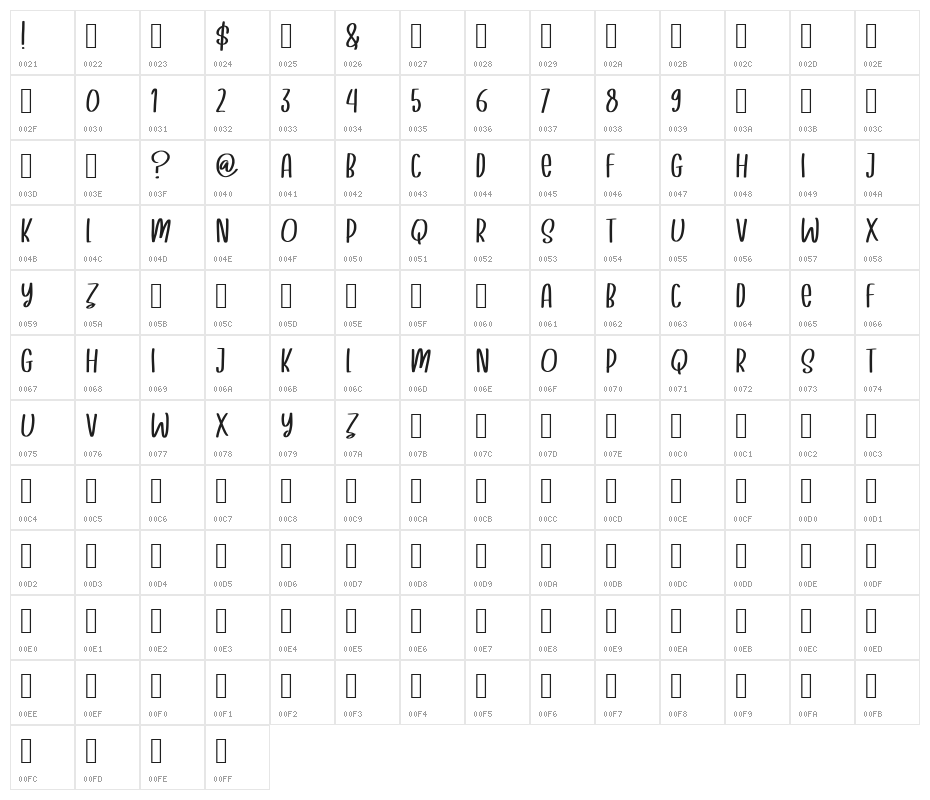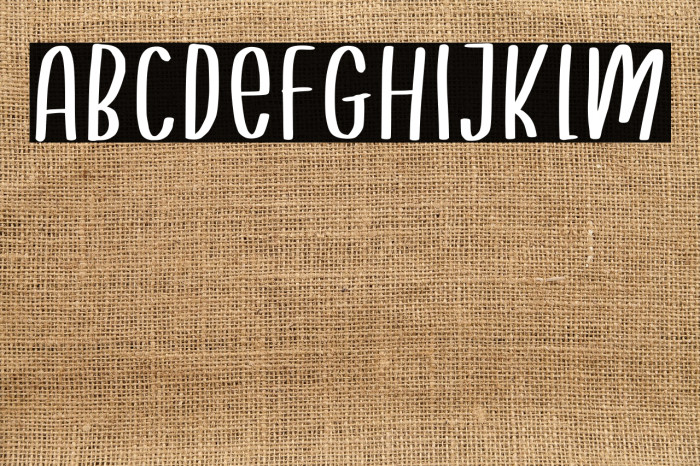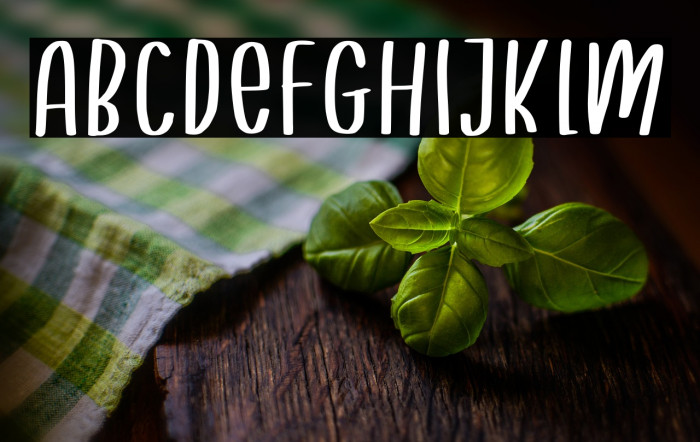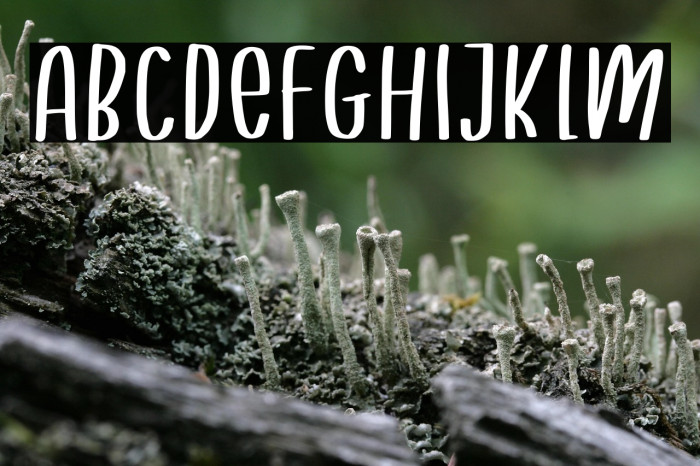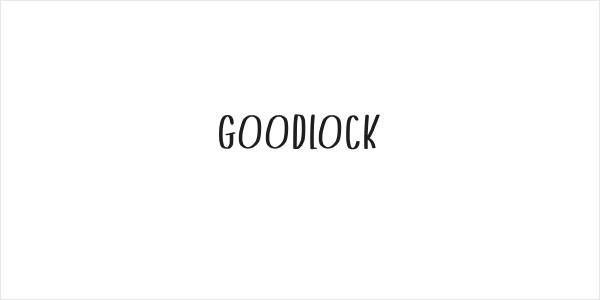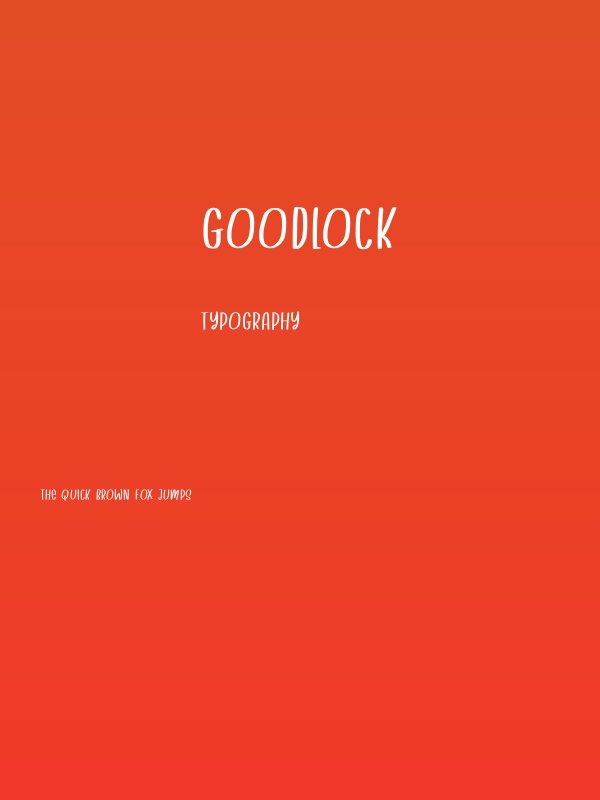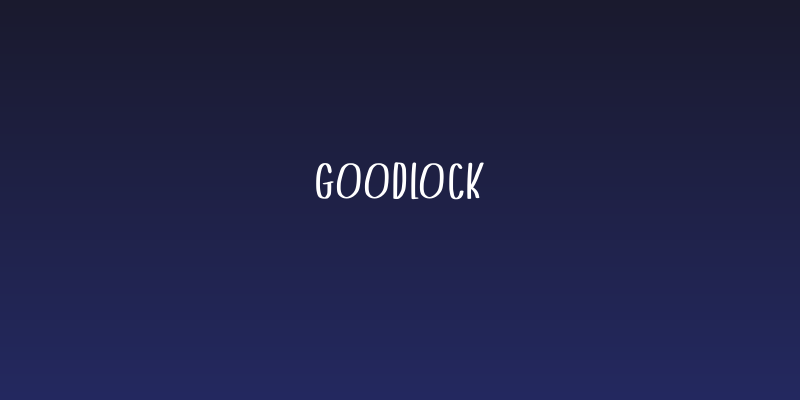
Goodlock Font
Goodlock Description
This font features a playful and casual handwritten style, characterized by its smooth, rounded edges and consistent stroke width. The letters are slightly slanted, giving a dynamic and informal appearance. The uppercase and lowercase letters maintain a cohesive look, with the uppercase being slightly taller and more prominent. The numbers follow the same style, ensuring uniformity across all characters. Special characters are designed to blend seamlessly with the rest of the font, maintaining the same playful aesthetic. This font is ideal for projects that require a friendly and approachable feel.
| Overall Style | Casual |
| Use Case | Logos, Invitations, Greeting Cards |
| Proposed Projects | Perfect for greeting cards, invitations, children's books, and casual branding. |